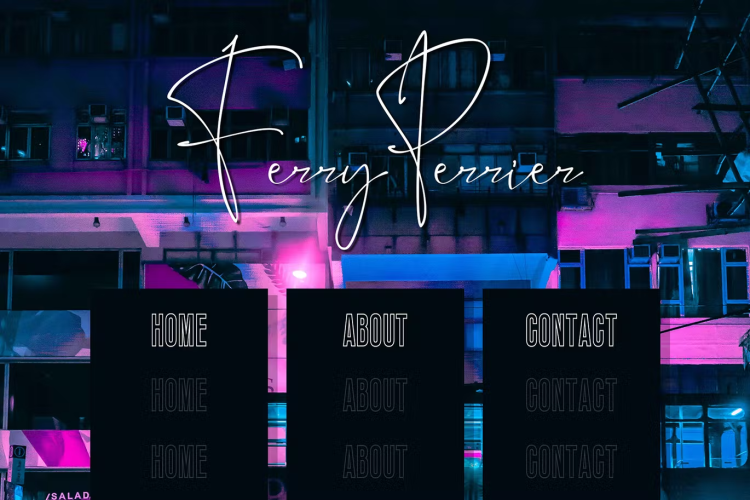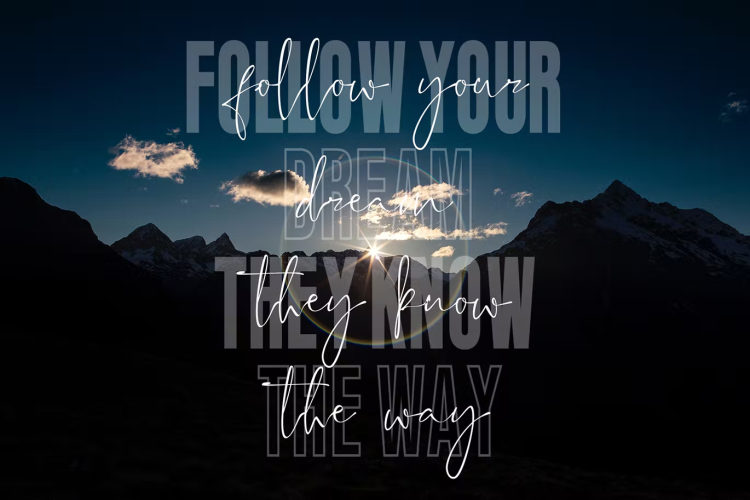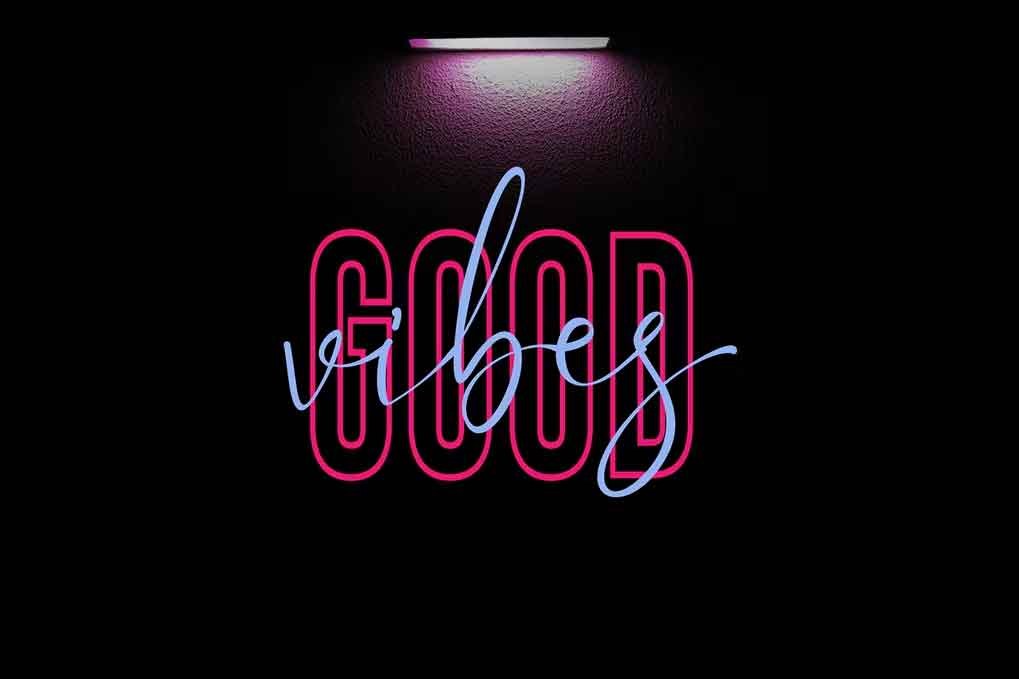
GOOD VIBES 3 FONT
3 FONT BUNDLE (Signature Font and Sans Font)
Hand Lettering Signature font, Sans Bold and Sans Line. For your professional design projects; logos, branding, magazines, blog posts, social media, advertisements & product designs.
Where GOOD VIBES 3 FONT works best
GOOD VIBES 3 FONT stays legible at small sizes, which makes it a strong choice for navigation, buttons and dashboards in web design and app interfaces.
Clean sans serifs like GOOD VIBES 3 FONT are the default language of SaaS, fintech and product branding.
What is GOOD VIBES 3 FONT good for?
GOOD VIBES 3 FONT is a Sans Serif Fonts typeface tagged Bold, Branding, Editorial, Packaging. It works well for headlines, logos, posters, social media graphics and branding projects that need a distinctive sans serif fonts look.